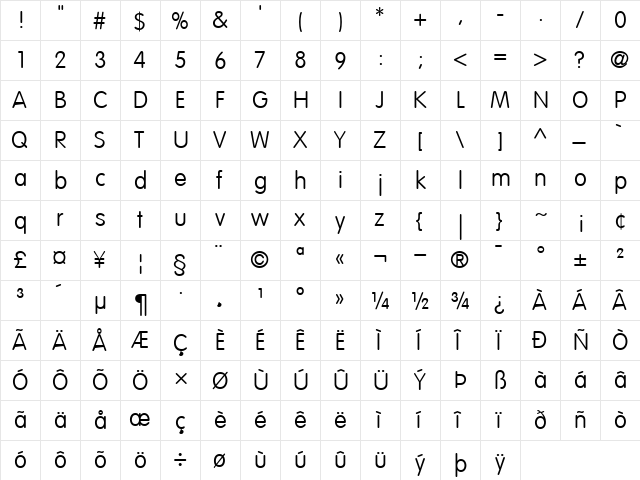
VAGRounded-Thin Thin Font Preview
VAGRounded-Thin Thin
Design Context for VAGRounded-Thin Typeface
VAGRounded-Thin uses gentle rounded endings to create a warm, inviting typographic personality — less corporate than geometric sans, more refined than playful display fonts. The delicate stroke weight brings airiness and refinement to layouts.
A natural fit for tech startups, health and wellness brands, children's products, and friendly consumer apps.
Font Pairing: Pairs well with a rounded or humanist sans for body copy, maintaining the friendly tone without relying on VAGRounded-Thin to carry extended reading.
Pro Tip: Pair VAGRounded-Thin with a geometric sans for a balanced system — the rounded softness works as a warm counterpoint to harder-edged companions.